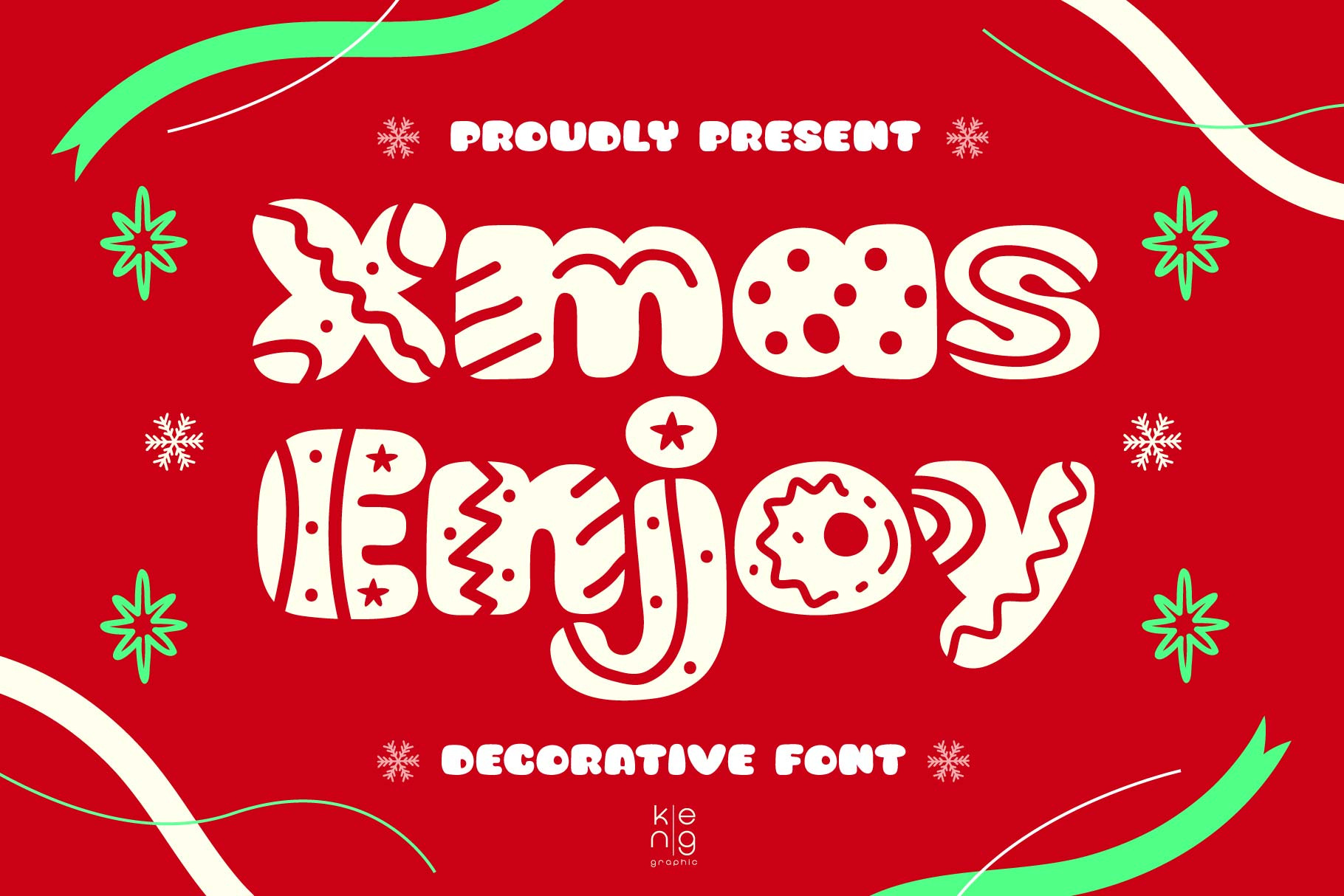
Xmas Enjoy font
Unleash the holiday spirit with Xmas Enjoy FONT, a distinct decorative font that exudes festivity and joy. Perfect for your Christmas needs, this font brings magic to items like T-shirts, cards, mugs, gift boxes, and even books and tags. Its playful appeal sparks joy and inspires creativity, making everyday items extraordinary, festive, and bright. Choose Xmas Enjoy FONT and let every letter spread holiday cheer!